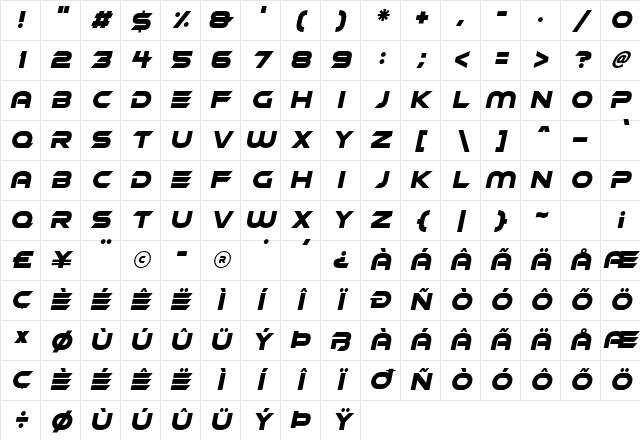
Robot Rocket Italic Free Font
Robot Rocket Italic
Complete Robot Rocket Italic glyph index. Displaying only characters natively supported by Robot Rocket Italic font.
Design Context for Robot Rocket
Robot Rocket is a composed and adaptable typeface that performs quietly and consistently across a wide range of design contexts. The slanted form adds forward momentum and visual energy.
Pro Tip: Use Robot Rocket for emphasis, pull quotes, and subheadings where its slanted energy can add rhythm to the layout.